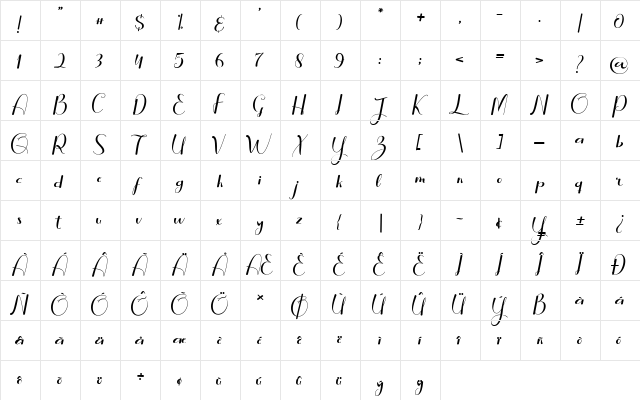
Rollent Regular
| Foundry | Picatype |
| Designer | Picatype Studio |
Design Context for Rollent Typeface
Rollent is a composed and adaptable typeface that performs quietly and consistently across a wide range of design contexts.